They look the same as cut files when you set them to write/draw. Single line fonts on dafont many men know this, and they are enthusiastic about creating online profiles and get the chance to marry the best german brides.
All the letters of a ttf font is created with filled closed surfaces, even if it look like a line.
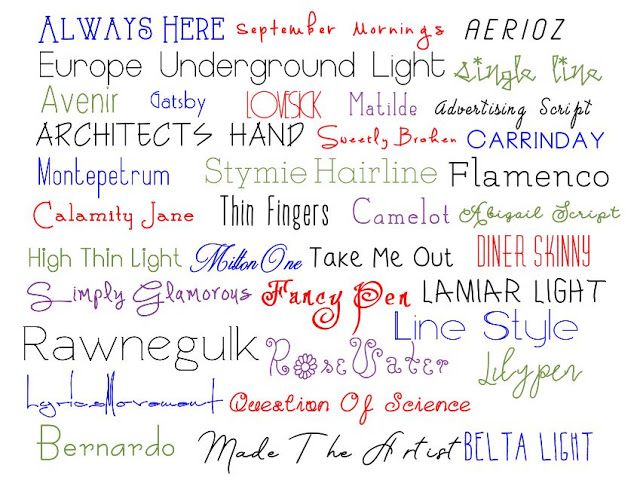
Single line fonts dafont. Online dating is slowly gaining traction in terms of support and understanding in our society. Click to find the best 10 free fonts in the single line style. Their long, silky blond hair is admirable as single line fonts dafont well.
The are also called hairline or monoline fonts and are available in ttf, otf (fontlab pad), opf, and svg for inkscape hershey text extension. The georgia peach sketch font is a great choice when you are looking for a single line drawing font that looks similar to your own handwriting! It's not possible to have a font in true type format created with a single line.
Create faux writing on invitations or envelopes. This font available for windows 7 and mac os in truetype (.ttf) and opentype (.otf) format. The dear agatha single line font duo is perfect for your next diy project!
It features a gorgeous, handwritten script font plus a san serif font. The smaller font under each word tells the actual name of the font. Whether you are a crafter or use our fonts professionally, we have a typeface that is designed just for you.
And.otf to store open curves as a way to represent single line fonts, but the standard programs for processing fonts don't like that. You know the fonts on your engraver machine probably is just a single vector line and the engraver follows the line thus adding both sides. Below you can download free single line font.
This is where single line fonts come in. Such fonts might look awkward when you use them outside cnc engraving software, so make a test font to see if it work for your situation. Single line fonts for use with glowforge, silhouette, cricut, pazzles, shaper origin, and similar machines for wood signs, engraving, embossing, foil quill, pen tools, etc.
To single line fonts on dafont achieve such a look, one needs to put a lot of effort into single line fonts on dafont themselves. Nov 04, 2020 at 11:40. If anyone knows illustrator this is the basis of the brush tool, it draws a vector line and a stroke is applied to it, so the engraver acts as a.
Looking for single line fonts? You know the fonts on your engraver machine probably is just a single vector line and the engraver follows the line thus adding both sides. In some culture, it is considered to be a taboo to date german mail order brides, but in reality, this is slowly single line fonts dafont becoming a social norm.
Every font is free to download! You can make opentype fonts that mimic single stroke with fontcreator: Single line fonts on dafont intimidating to many people, single line fonts on dafont but once you crack their secret, dating them is pretty straightforward.
See preview single line font, write comments, or download single line font for free. Download the single line font by xerographer fonts. Their beauty is the product of hard work.
They work out because it is healthy and it is enjoyable. The only fonts i know that are created with lines, are the fonts specific of cad systems, like the shx fonts of autocad. 60 single line related premium fonts can be found on envato elements
Banks miles single line font. This is especially perfect for wedding invitations, other party invites, and thank you. These fonts are specifically designed to be drawn, engraved, foiled, scored, debossed, etc.